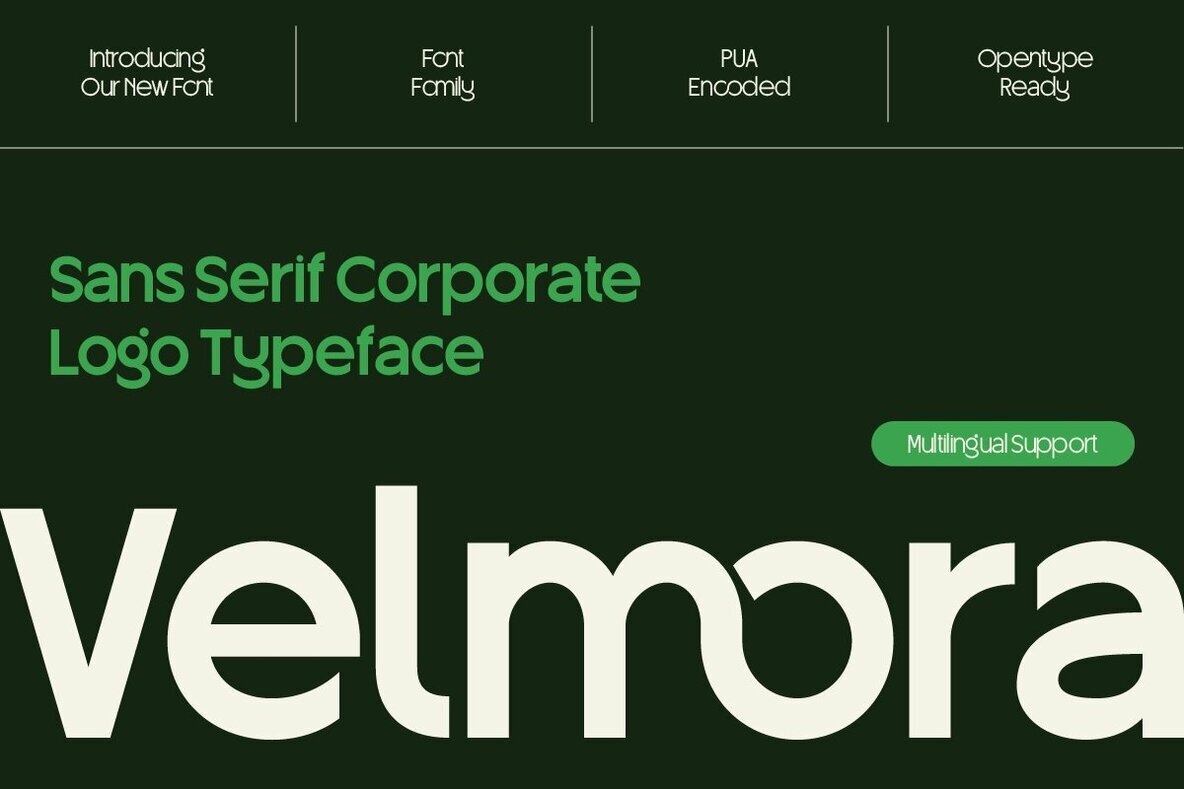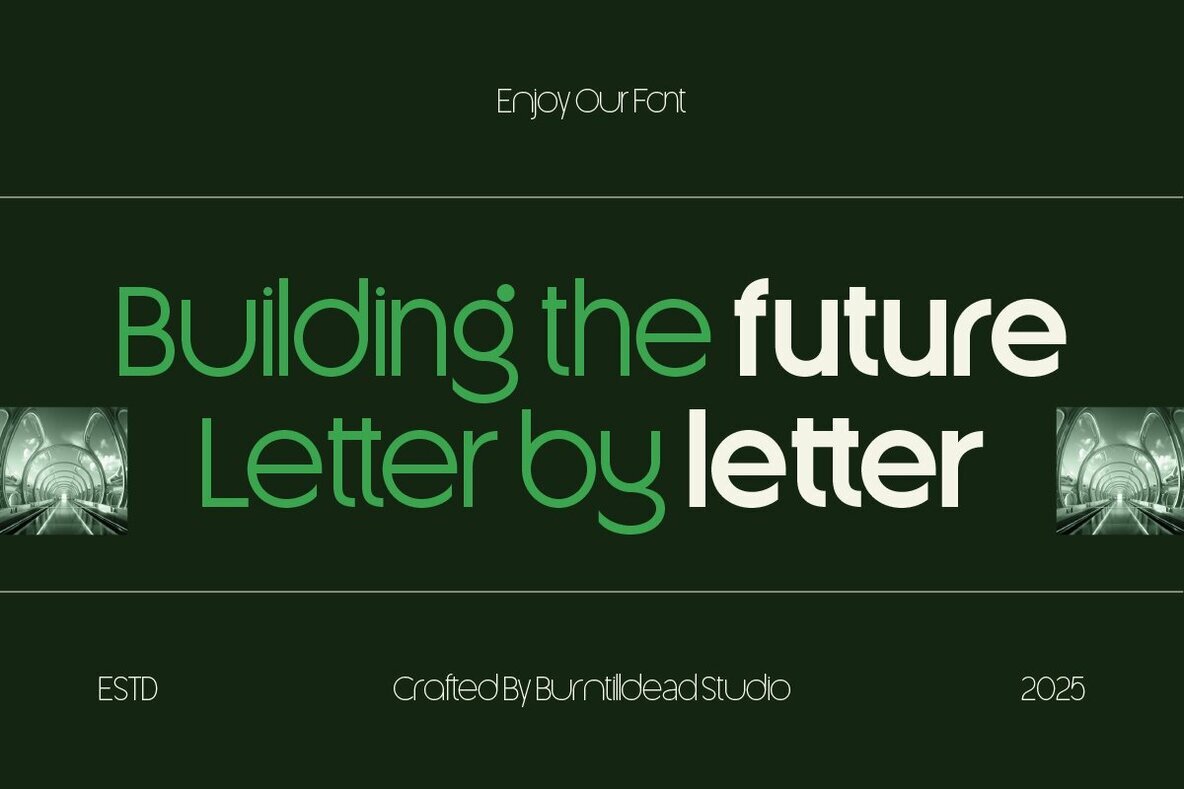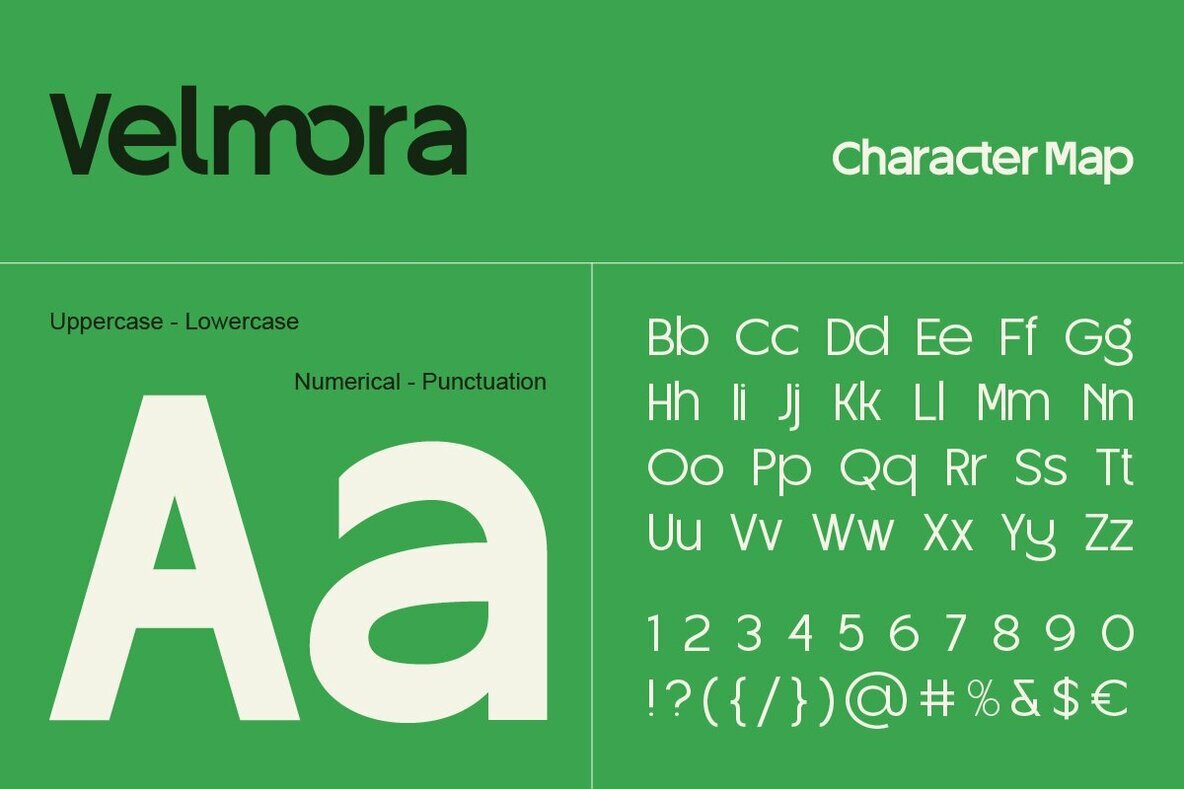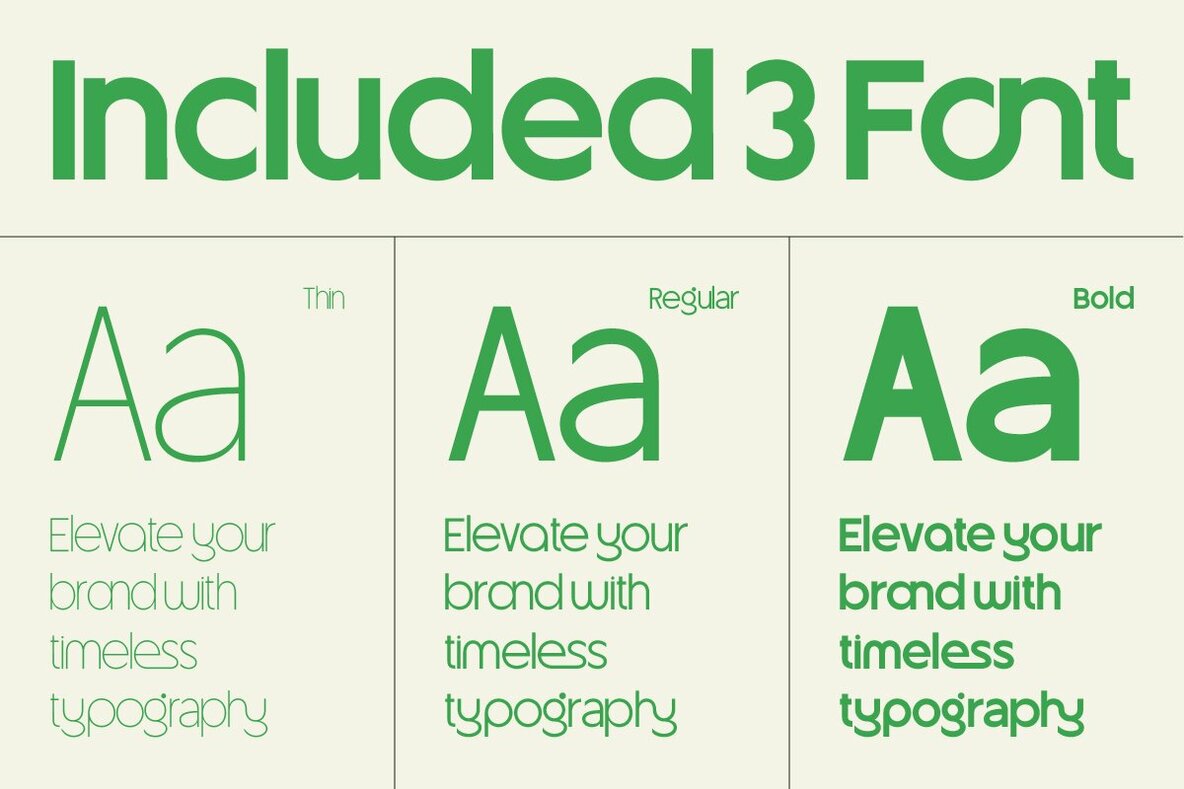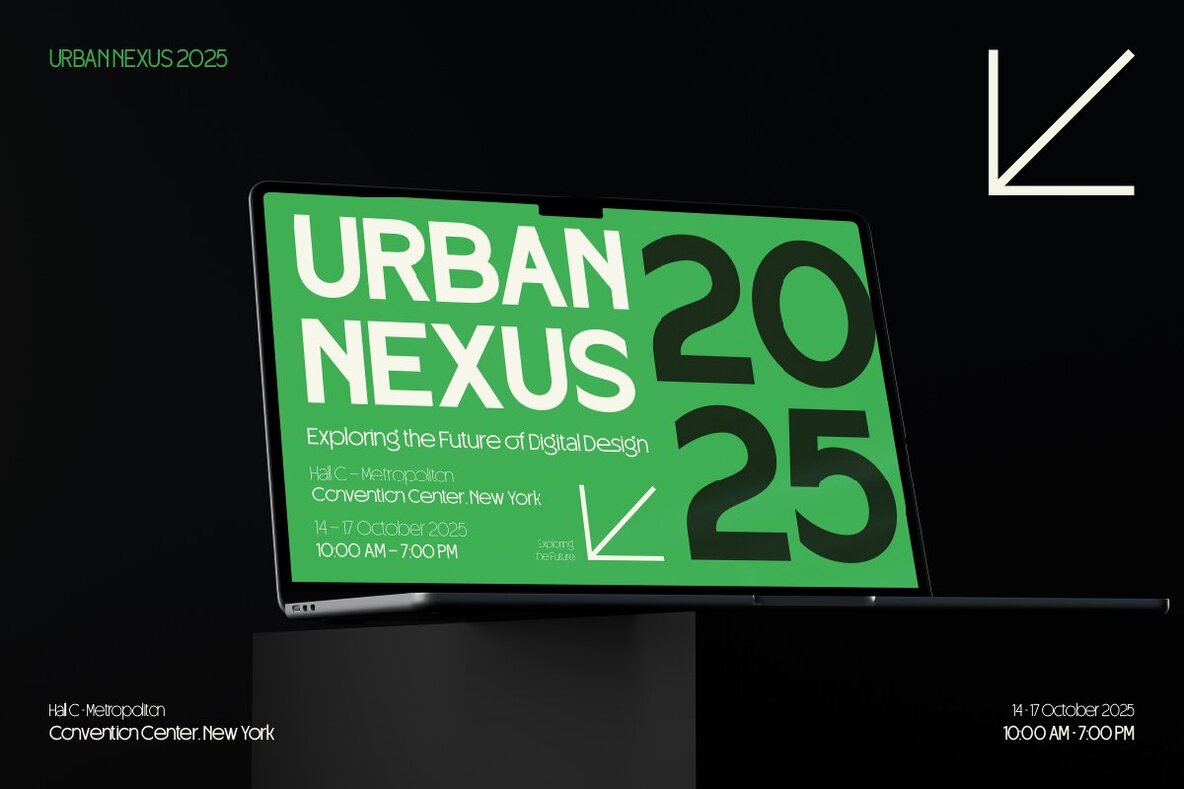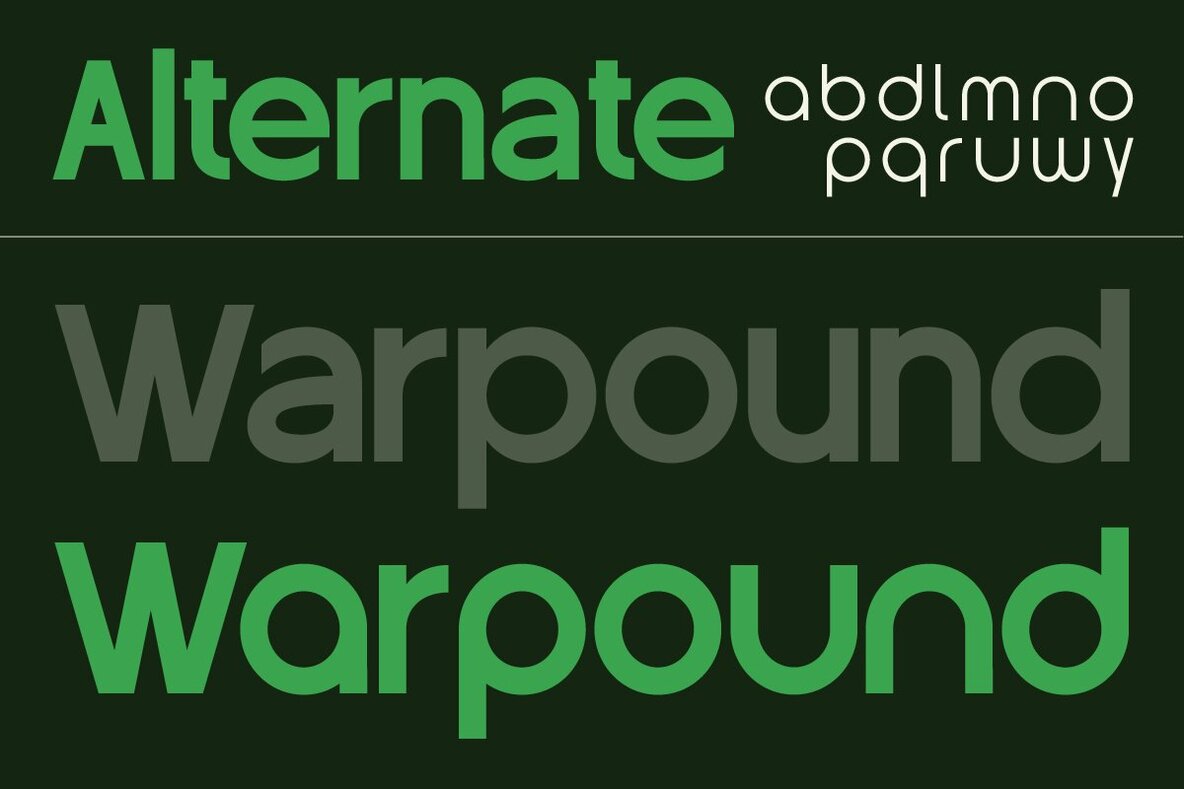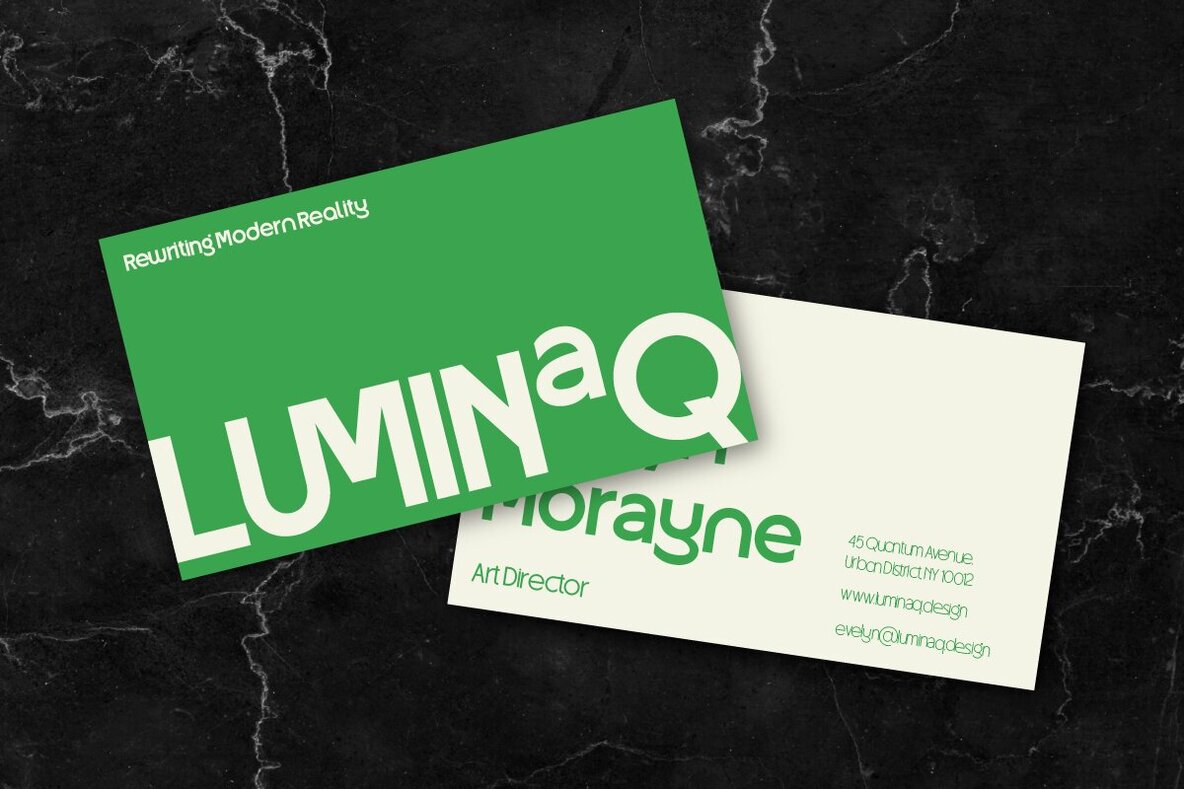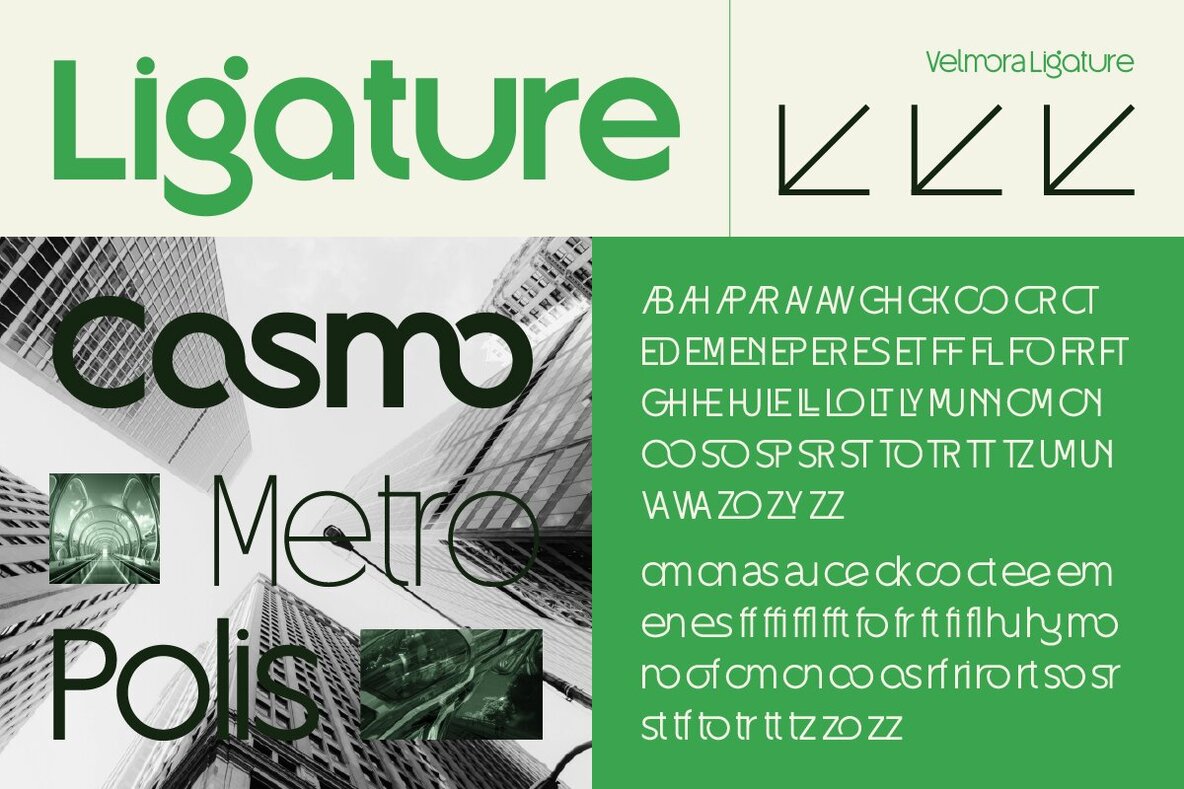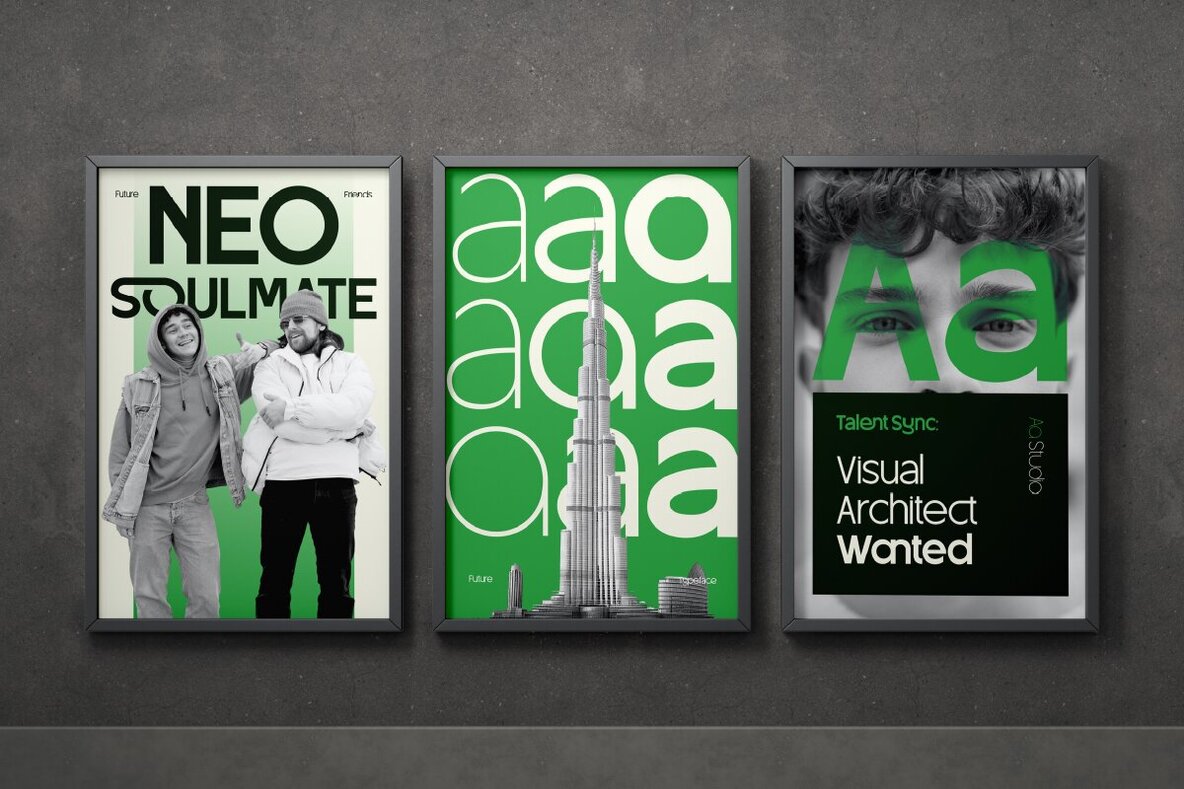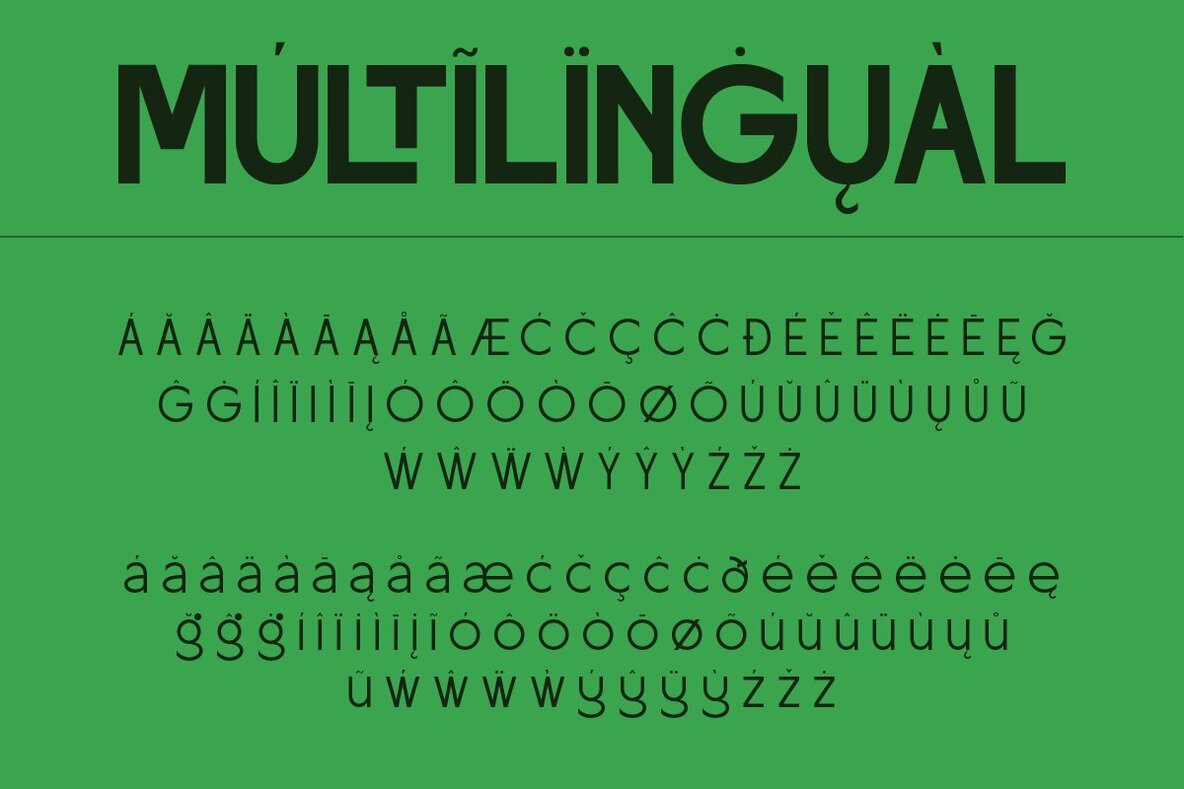
Velmora Font
Velmora Thin
Velmora Regular
Velmora Bold
Velmora is a modern sans serif typeface that exudes confidence and clarity, perfect for branding applications. Its smooth curves, clean lines, and subtle geometric touch offer professionalism combined with approachability. Ideal for logos, corporate identity, websites, business cards, and social media graphics, Velmora strikes a perfect balance between modern elegance and trustworthiness.Velmora: Modern Sans Serif for Branding